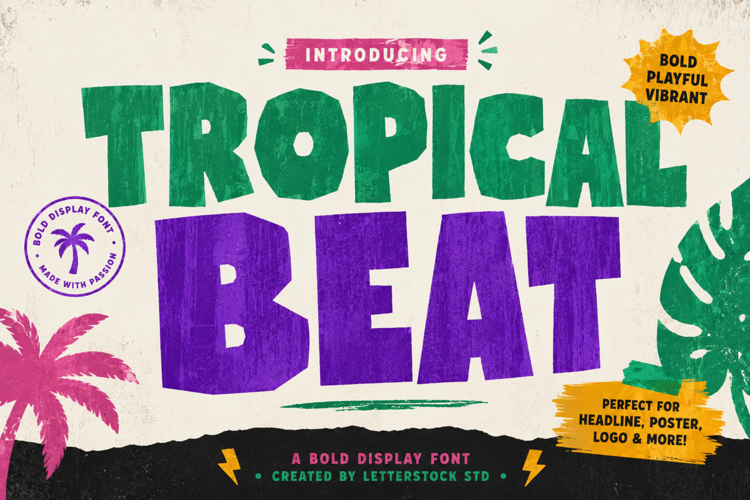
Tropical Beat
**Tropical Beat – Bold Display Font**
Introducing **Tropical Beat**, a bold display font inspired by vibrant tropical vibes, sunny adventures, and playful summer energy. Featuring strong geometric letterforms with handcrafted textures and a striking personality, this font is designed to make your headlines impossible to ignore.
Whether you're creating branding, posters, logos, packaging, event graphics, or social media content, Tropical Beat brings a fresh, energetic, and eye-catching look to every project.
Its bold shapes and artistic character make it the perfect choice for designs that need a fun, modern, and adventurous feel.
**Why You'll Love Tropical Beat**
* Bold and impactful display font
* Unique handcrafted character
* Perfect for large headlines and titles
* Fun, vibrant, and energetic personality
* Easy to mix with modern and retro design styles
* Great for both digital and print projects
* Multilingual support
**Perfect For**
* Logo Design
* Branding & Visual Identity
* Posters & Flyers
* Product Packaging
* Event Promotions
* Summer and Travel Designs
* Social Media Graphics
* Book Covers
* Magazine Headlines
* Website Headers
* Advertising Campaigns
* Music and Festival Posters
* Creative Projects
* Printable Designs
* Editorial Designs
**Font Features**
* Uppercase Letters
* Lowercase Letters
Tropical Beat is a bold display font that captures the spirit of adventure and creativity. If you're looking for a typeface that feels vibrant, playful, and full of energy, Tropical Beat is ready to make your designs stand out.